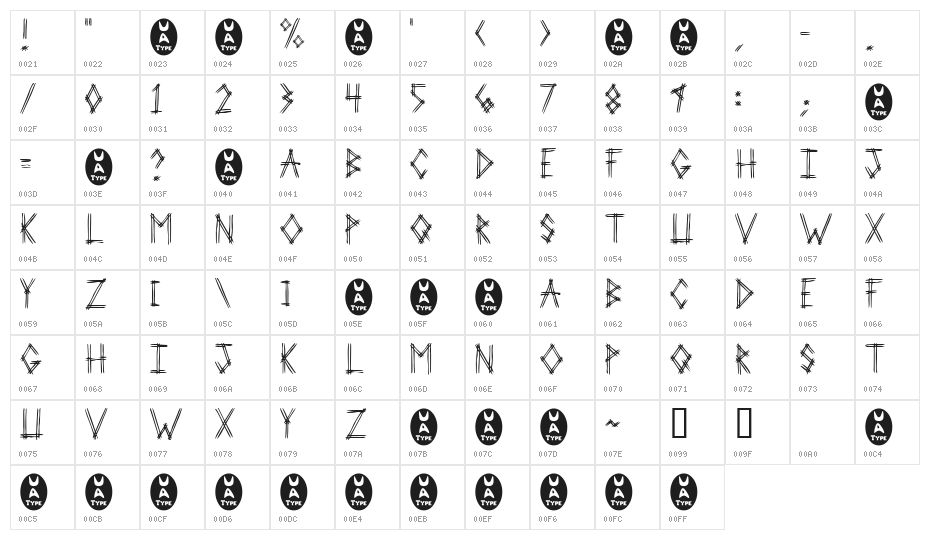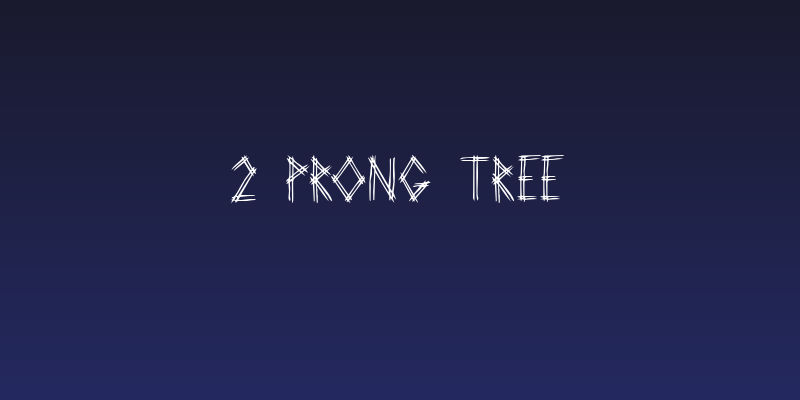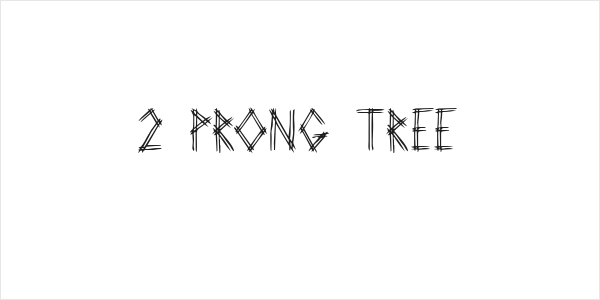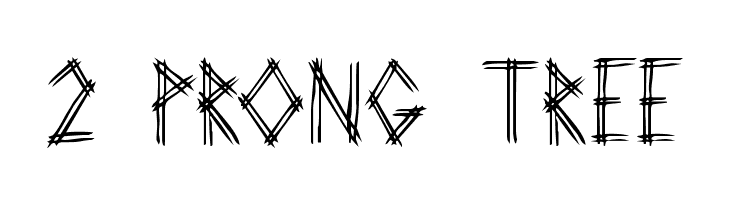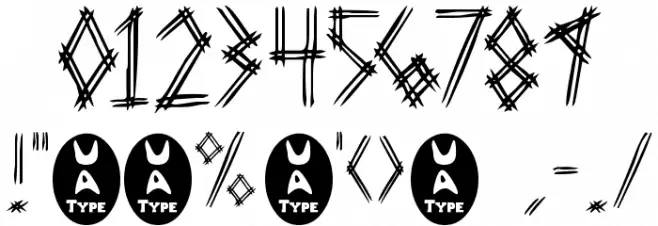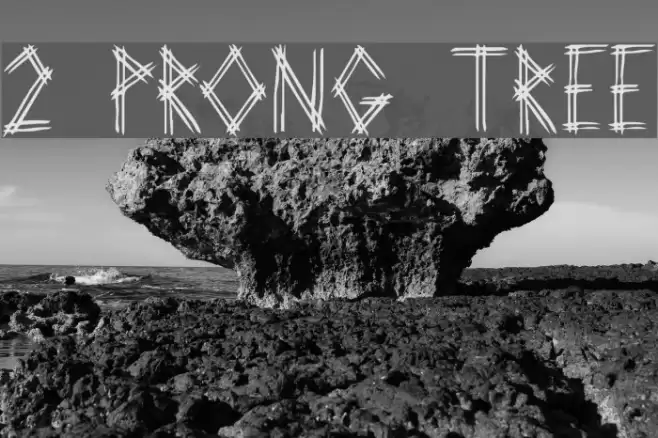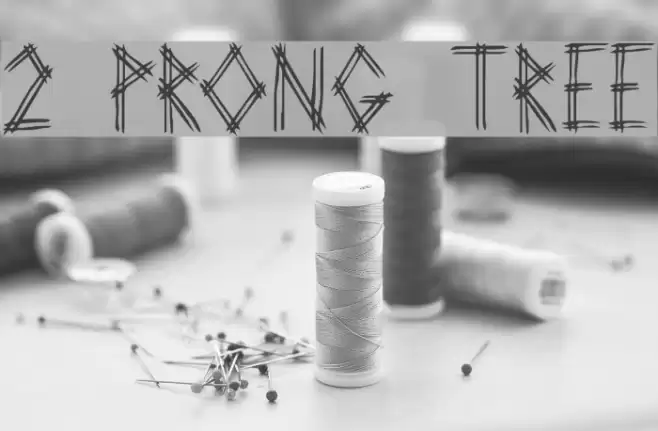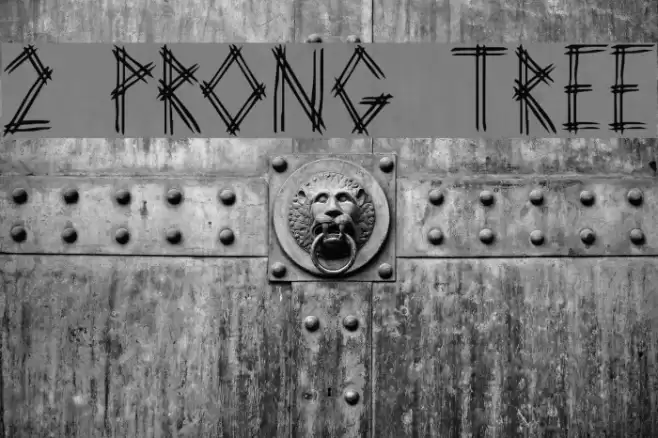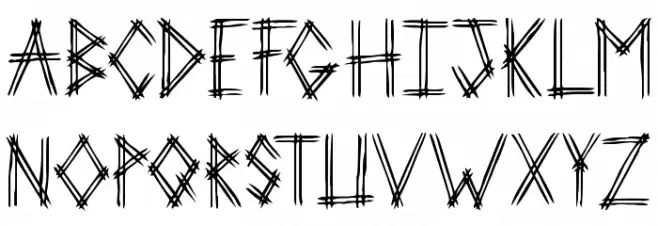
2 Prong Tree Font
| Gesamtstil | Rustic, Organic, Artistic |
| Vorgeschlagene Projekte | Ideal for nature-themed designs, artistic projects, album covers, posters, and branding that seeks a raw, natural aesthetic. |